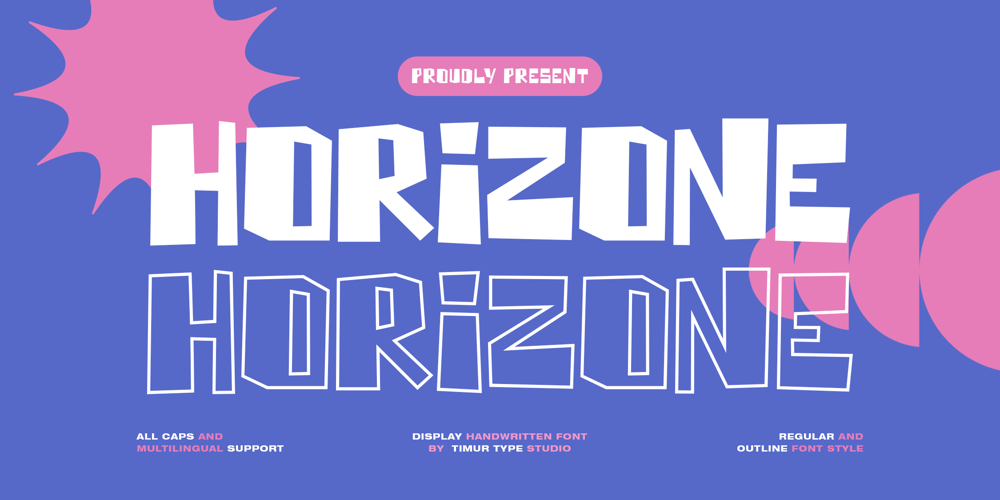
Horizone Font Family was designed by Wara Sigit Tri Pamungkas and published by Timurtype. Horizone contains 2 styles and family package options. Introducing by Timurtype Studio!Horizone is a Display Handwritten FontThis font resembles handwritten elegance meets versatility. Unique style and shape to elevate your designs with the perfect blend of regular and outline styles, ideal for crafting captivating titles, logos, and moreHorizone Font also supports multilingualism.Enhance your designs with our original fonts, feel free to comment or provide feedback, Enjoy the fonts ๐